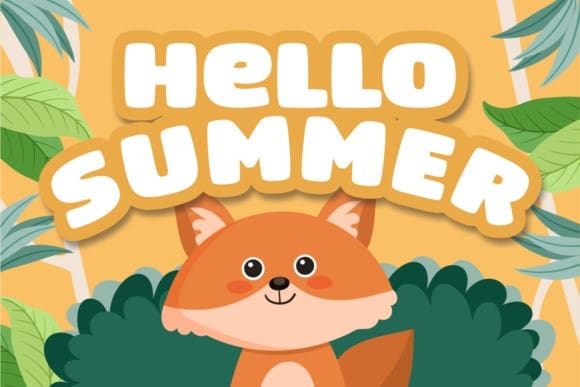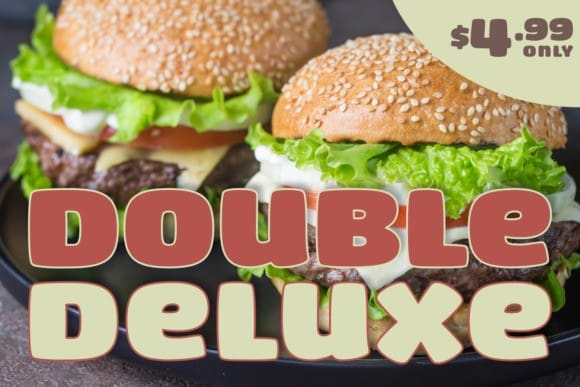
That Sounds Great Font
That Sounds Great Font is a cute and friendly display font. It embodies playfulness and authenticity and is the perfect choice for any children activity or school project.